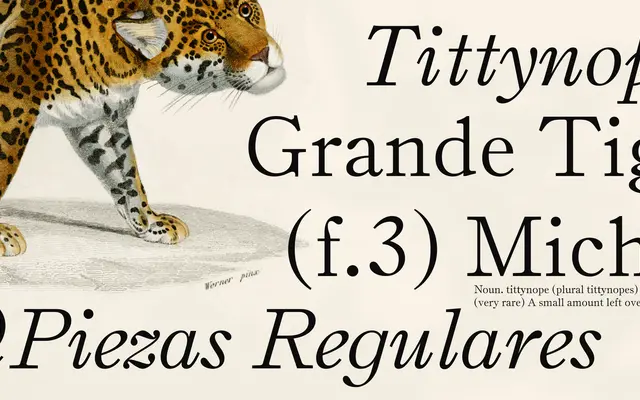
Rin Rin
Typozon · Cristian Vargas
A revival of Alexander Phemister's Old Style No. 1, expanded into five weights with italics for contemporary print and digital use.
Designed by Cristian Vargas at Typozon, this revival traces back to Phemister's 1829 design produced at Miller and Richards in Edinburgh. The original single cut has been extended into five weights from Light to Bold, each with a matching italic, to suit a broader range of typographic contexts. Latin coverage spans Basic Latin, Latin-1 Supplement and Latin Extended-A; the typeface is expected to release in July 2026.
Described explicitly as Transitional period, reviving Old Style No. 1 by Alexander Phemister; characterised by near-vertical stress, strong thick-thin contrast and horizontal head serifs — hallmarks of the transitional classification.